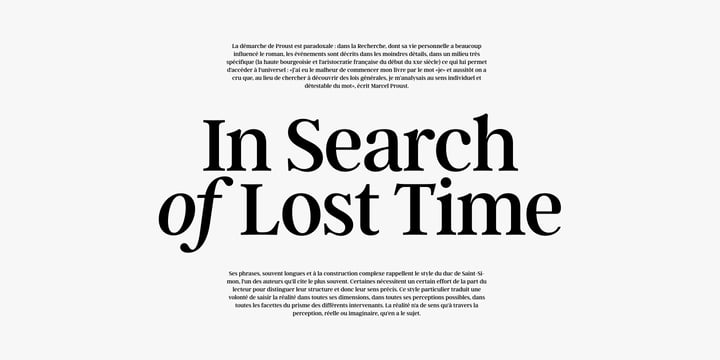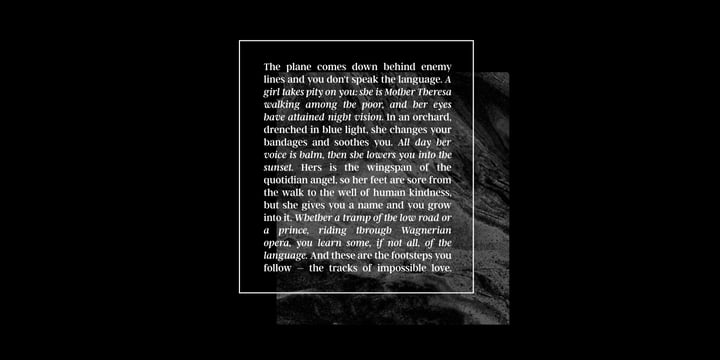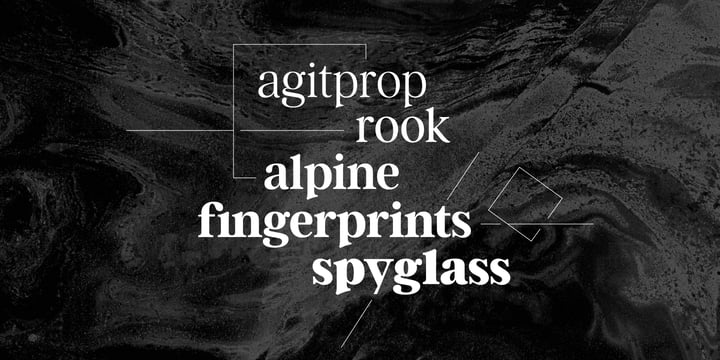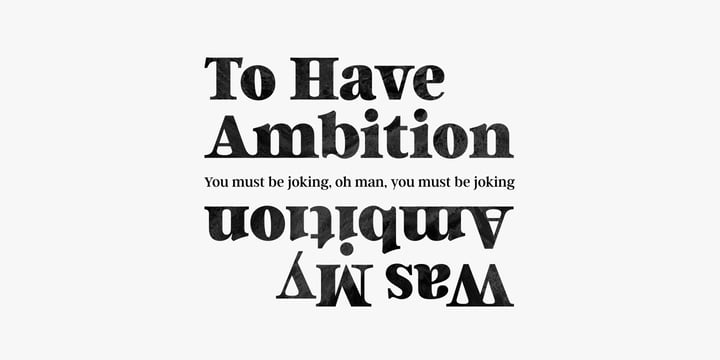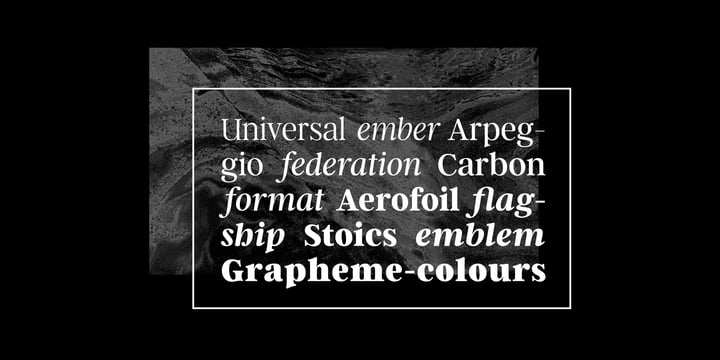
Argent CF
Argent CF by Connary Fagen
Argent CF Font Family was designed by Connary Fagen, and published by Connary Fagen. Argent CF contains 13 styles and family package options. More about this family
As an expressive and detailed typeface, Argent pairs nicely with clean typefaces that provide contrast, such as a sans serif like Greycliff CF, Artifex Hand CF, and Articulat CF.